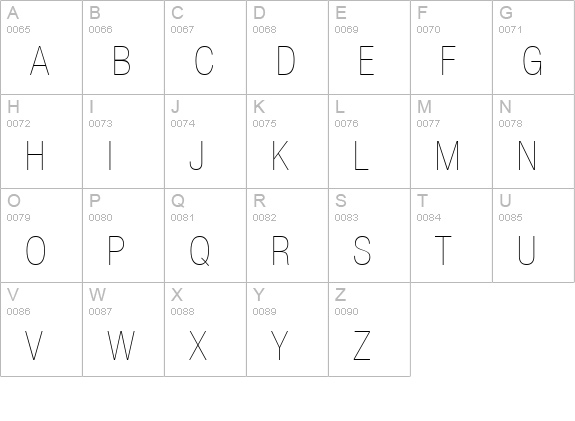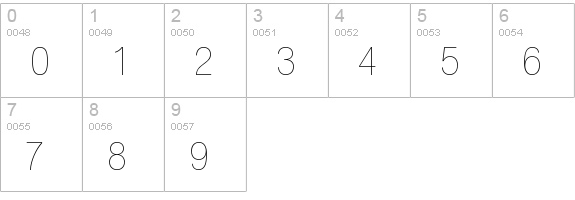
Context Reprise LightCond SSi Normal Font Details
Context Reprise LightCond SSi Normal is the standard, neutral variant in the Context typeface family \xE2\x80\x94 well suited to general body text, paragraphs, and standard typographic work.
Context Reprise LightCond SSi Normal font is a sleek and modern typeface that exudes sophistication and elegance. With its clean lines and balanced proportions, this font is perfect for a wide range of design projects, from branding to editorial design. The light condensed style adds a touch of refinement, making it ideal for creating a contemporary and polished look. Best of all, Context Reprise LightCond SSi Normal font is available for free download at FontsMarket.com. This means that you can easily access this stylish font and use it in your projects without any cost. Whether you're working on a professional design or a personal project, this font is a versatile choice that will elevate your work to the next level. Download Context Reprise LightCond SSi Normal font today and add a touch of sophistication to your designs.